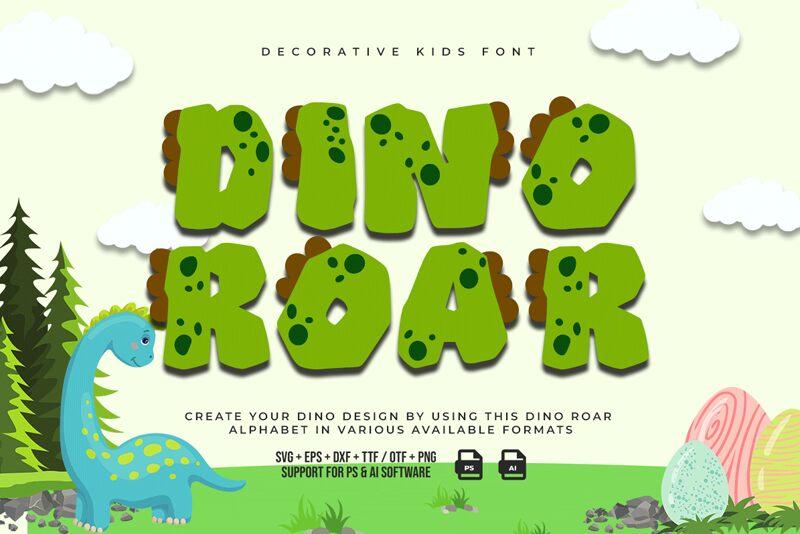
Dino Roar font by Kong Font is a decorative display font with an energetic vibe and playful feel. The chunky bold letters provide strong visual presence and impact for both short and long writing lines. The lovely informal font creates a light-hearted atmosphere whatever the typing language used.
Choose Dino Roar for print designs like greeting cards, kid coloring books, or teacher badges. Use in online posts, branding, web copies, YouTube videos, Instagram stories/reels advertising projects. Also consider it in designing simple packaging boxes like cereals or candy bars free of any complex content instructions.